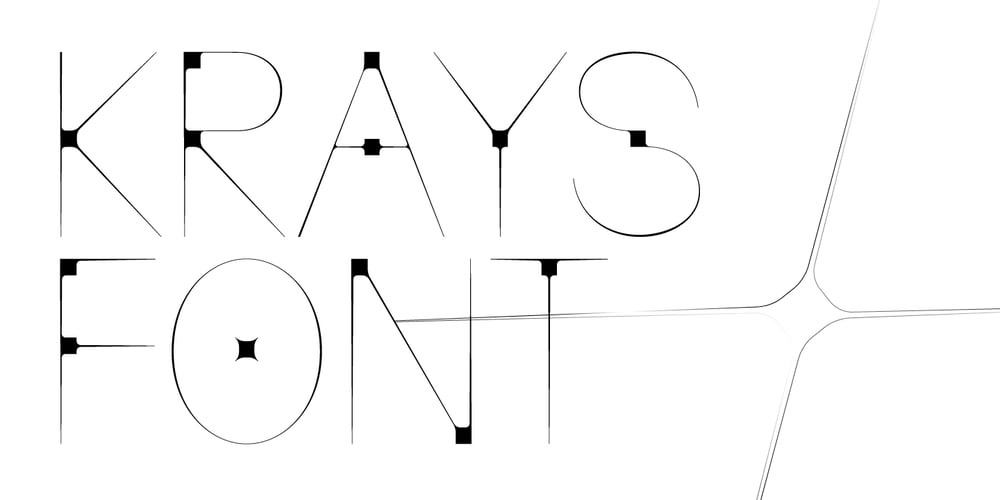
Krays Font Family was designed by Victor Pesotsky and published by Pesotsky Victor. Krays contains 1 styles and family package options. «KRAYS» is an ultra-thin font display. Simple structure and fine uniform strokes contrast with bold squares in the structural units. The combination of gravity and lightness. Krays supports Basic Latin and Extended Latin, Cyrillic — in total about 90 languages are supported.The font has one Regular weight. All uppercase. Krays font was designed by Viktor Pesotsky.